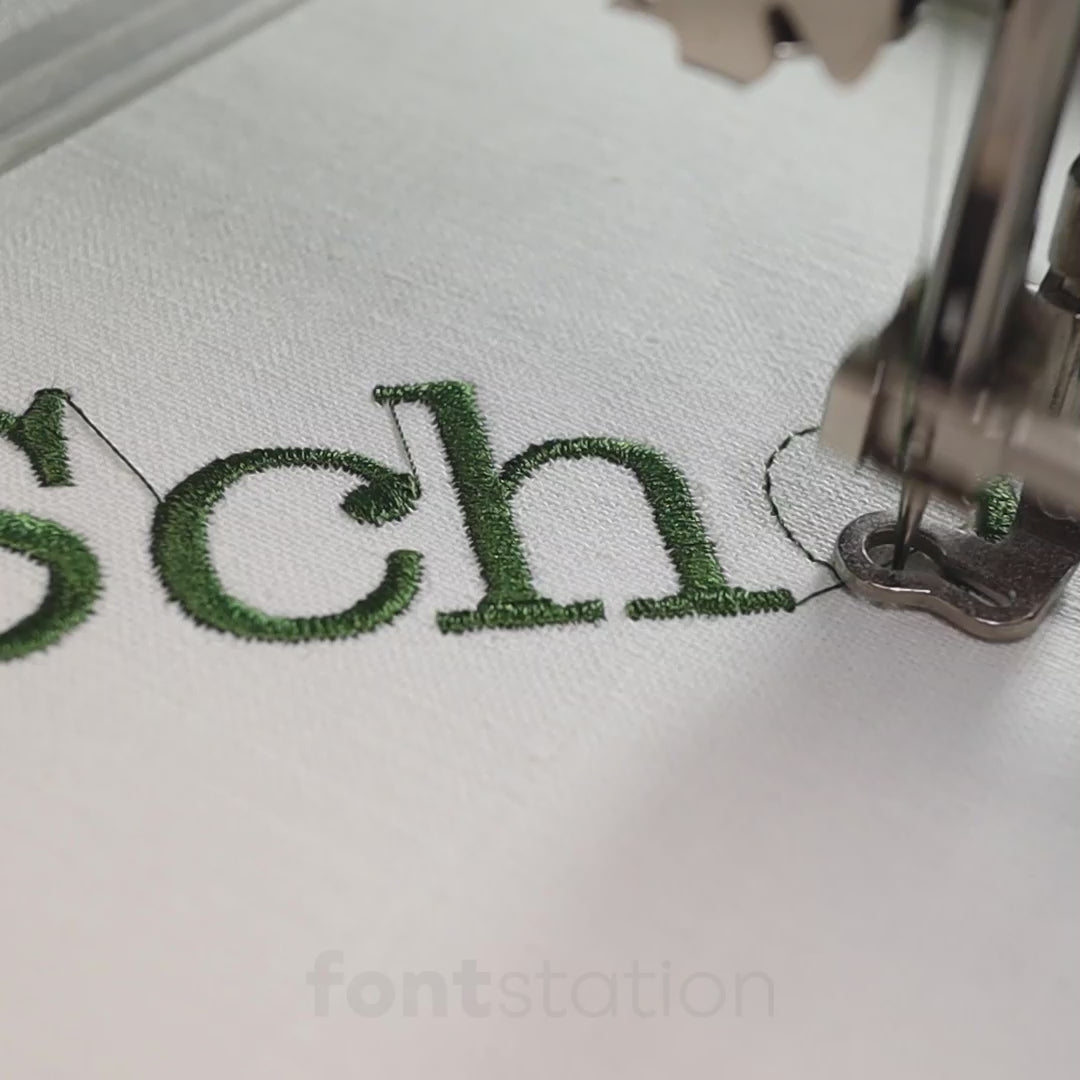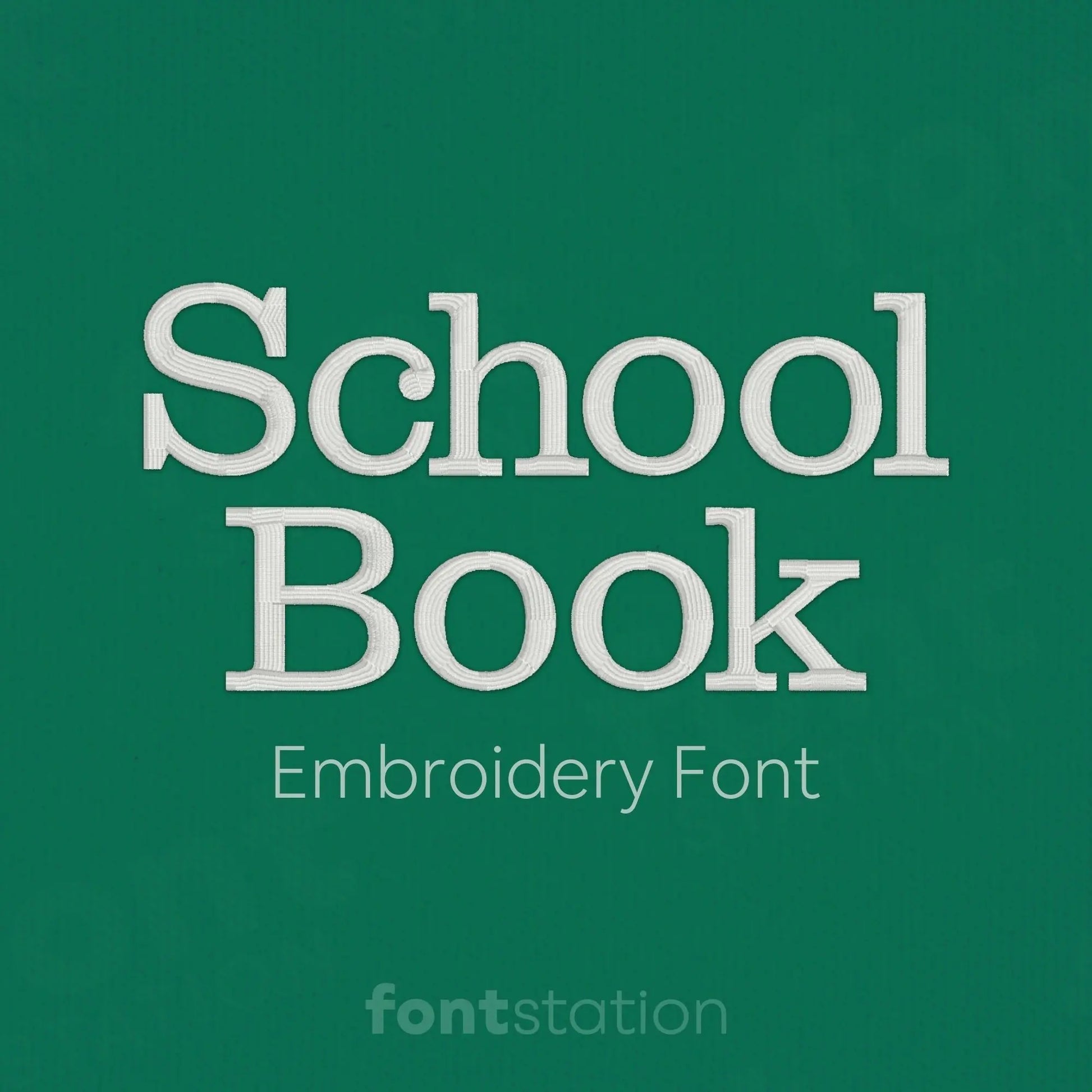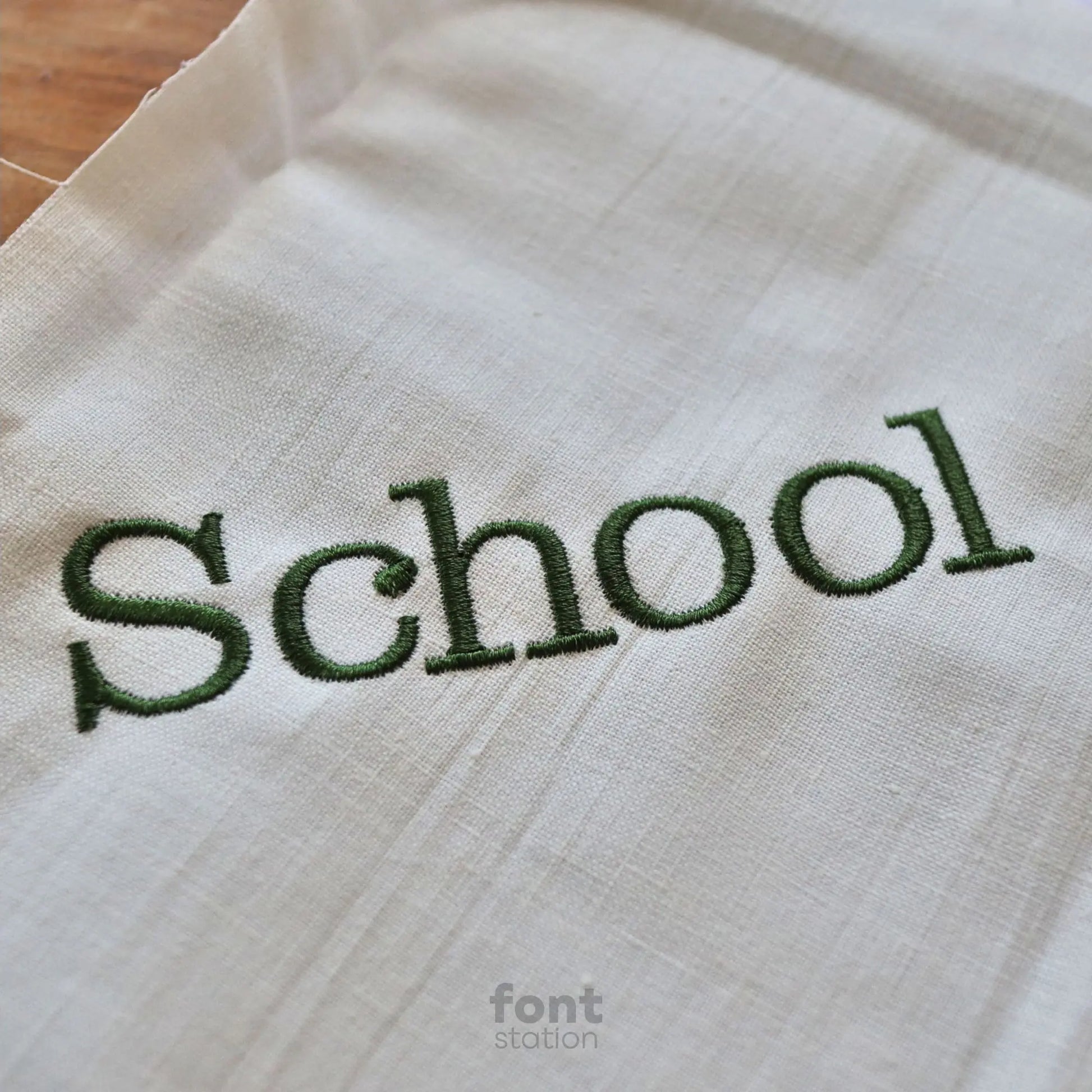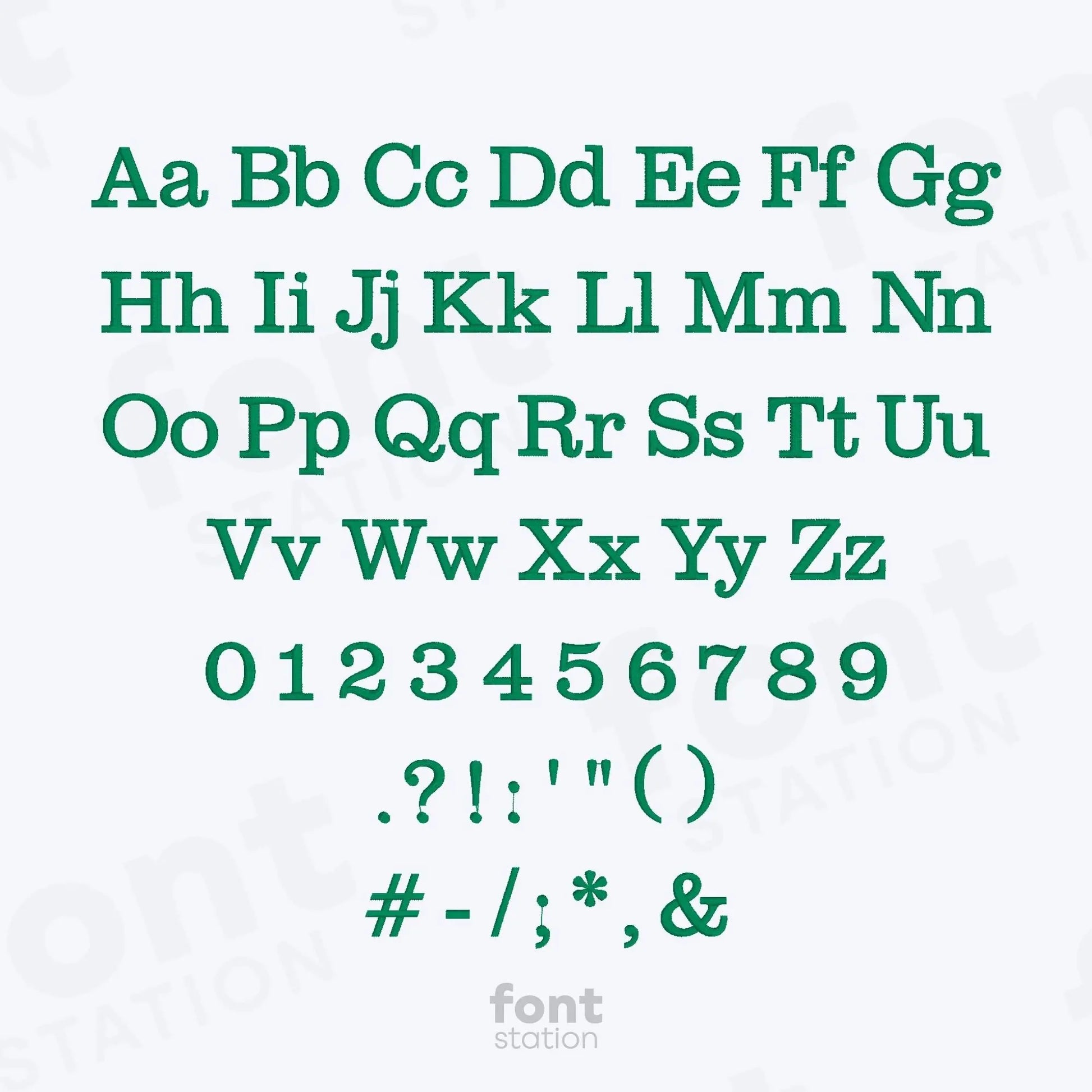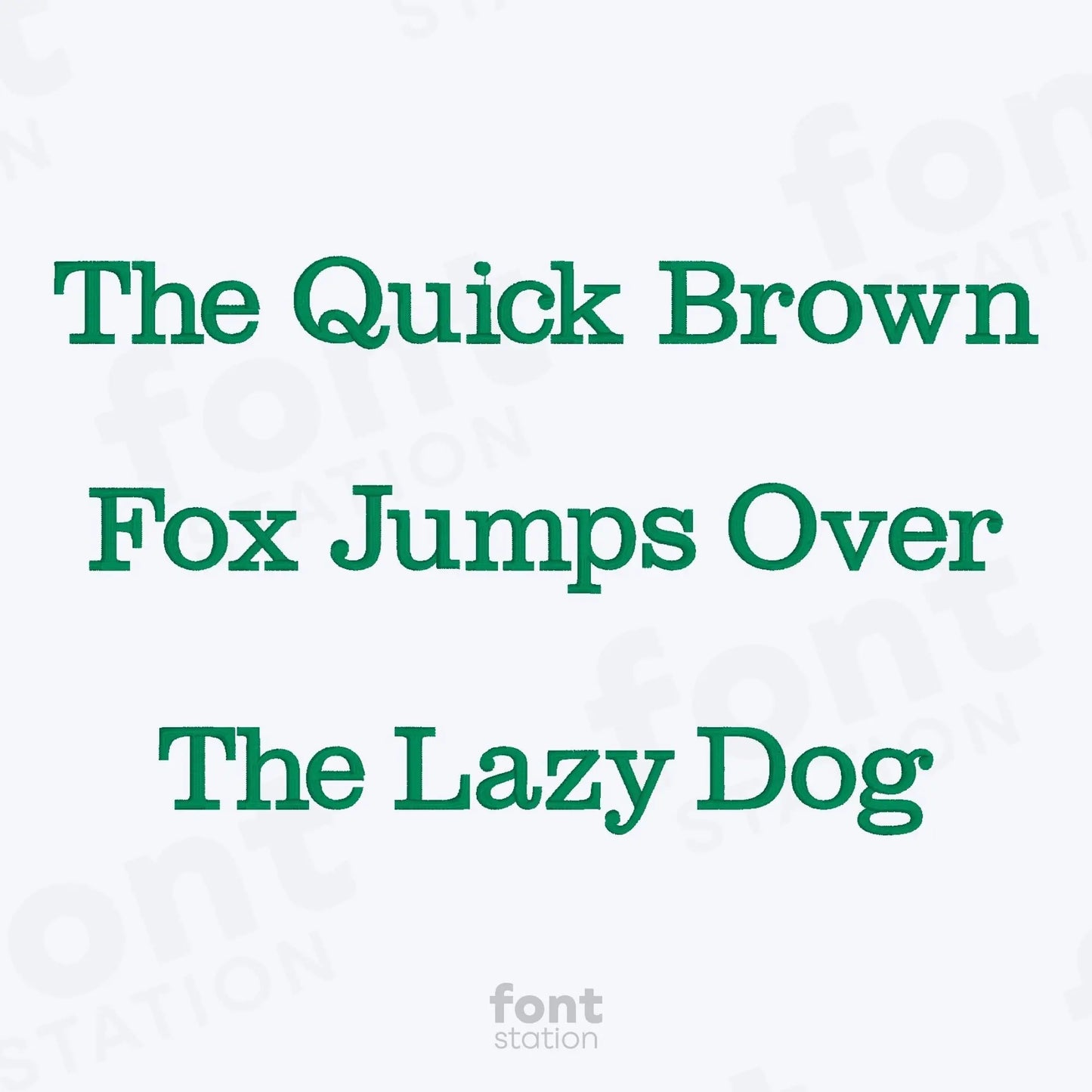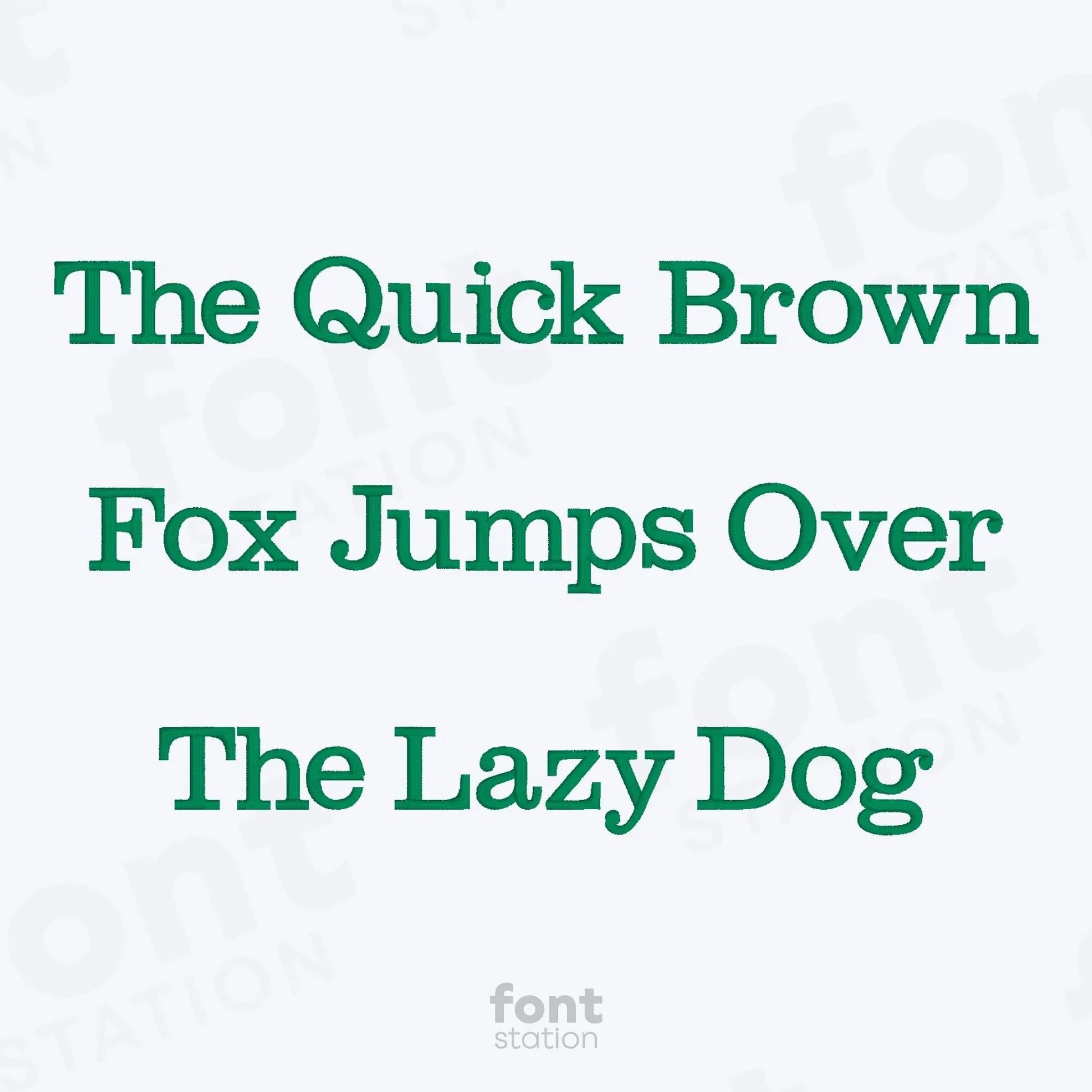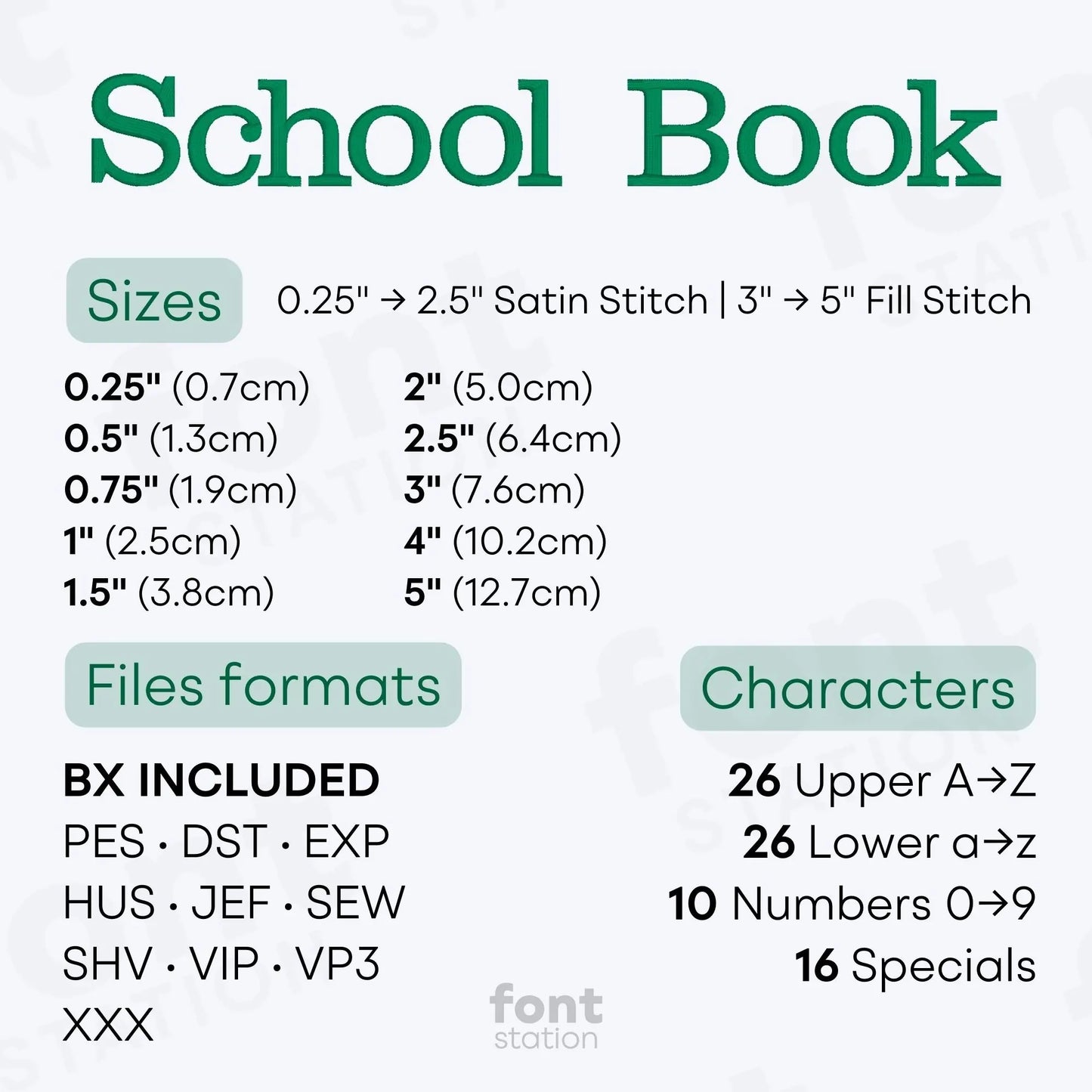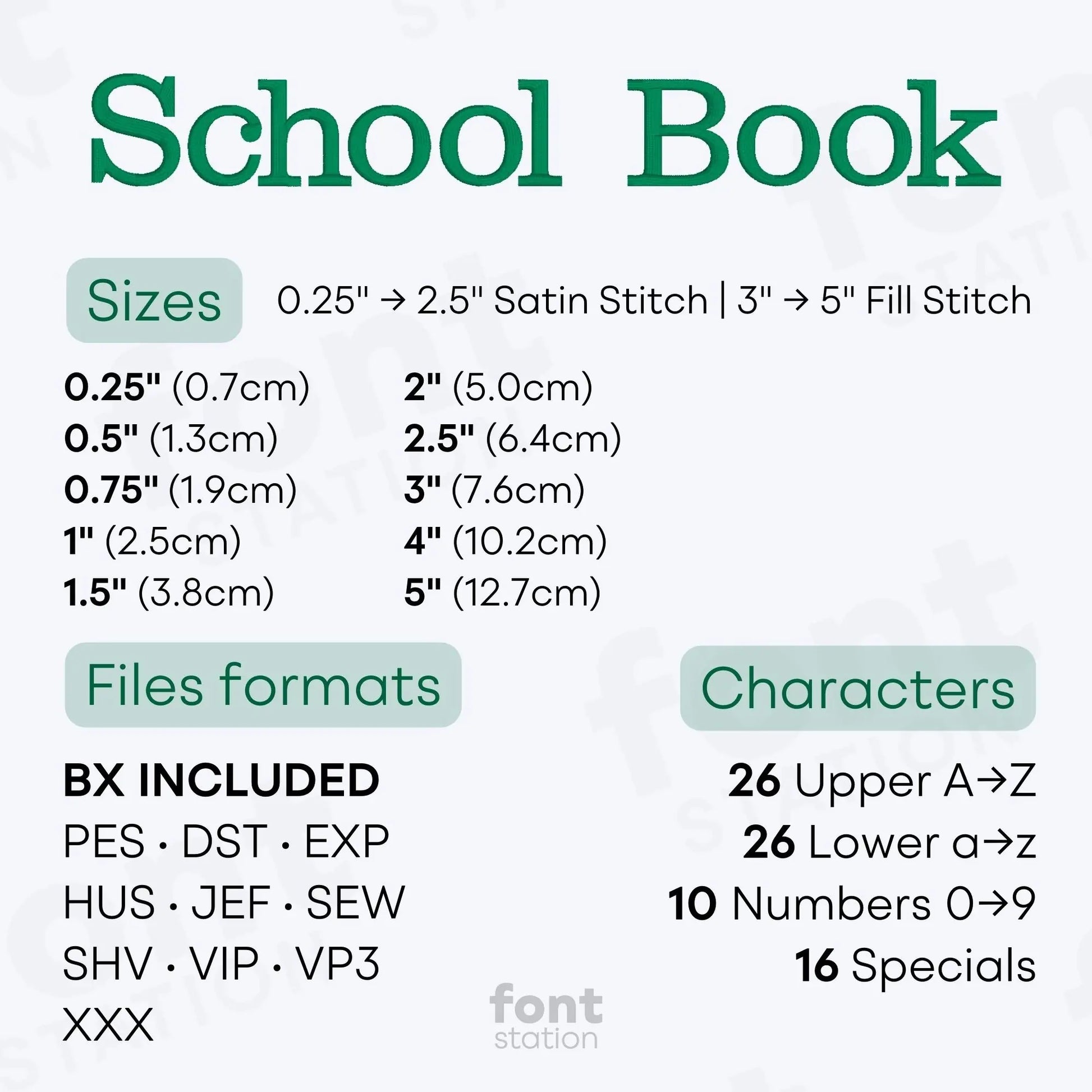
School Book Embroidery Font
Introducing our School Book embroidery font, a classic serif alphabet perfect for kids' projects. These letters stitch cleanly on any embroidery machine and add structure to your designs.
About the School Book Embroidery Font
Characters: 26 uppercase, 26 lowercase, 10 numbers, and symbols & ' * @ : , - . ! # ( ) ? " ; /
School Book Embroidery Font, a classic serif alphabet for Kids' Embroidery Projects
Our School Book embroidery font is a professionally digitized serif-style alphabet designed to deliver clean, classroom-inspired lettering for your embroidery projects. Perfect for stitching kids’ names, school-themed designs, uniforms, book bags, and personalized gifts, these machine-ready embroidery letters offer clear, structured shapes that are easy to read and stitch beautifully.
Why choose our School Book Embroidery Letters?